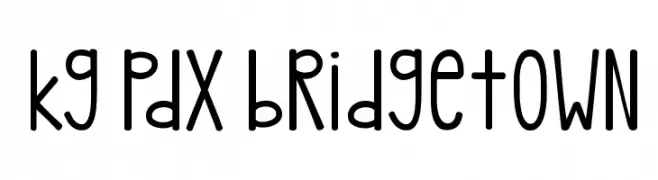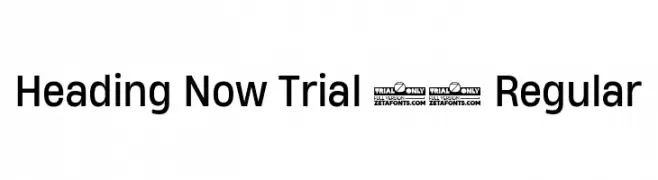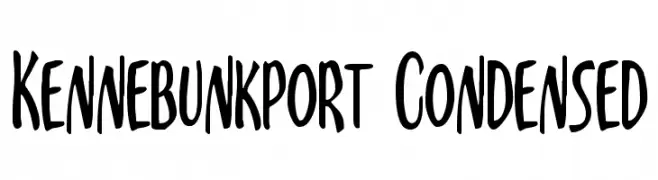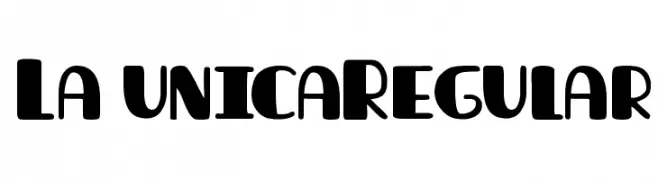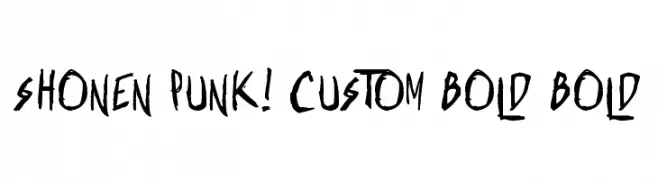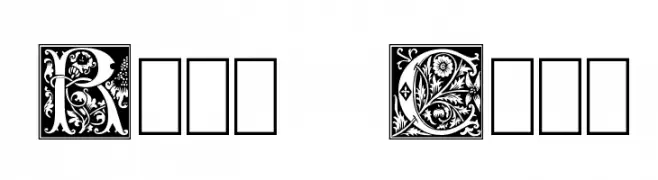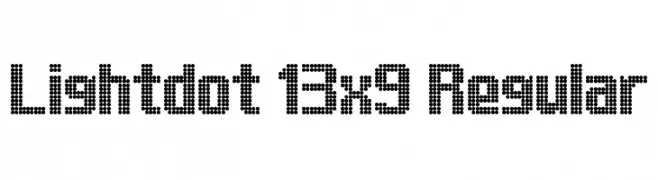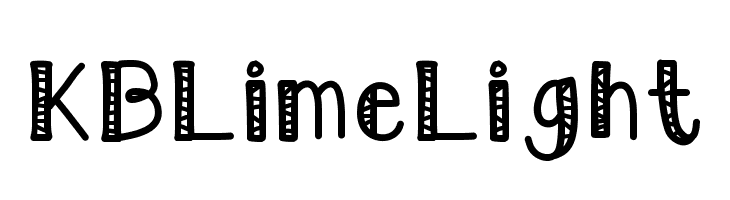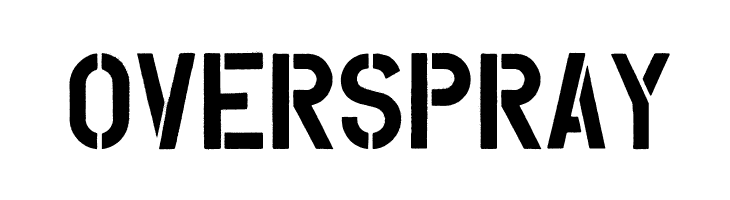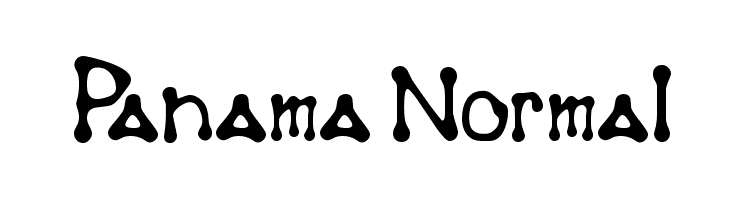
A playful, handwritten font with rounded edges and a friendly appearance.
A playful, handwritten font with an informal and organic style.
A modern, sans-serif font with a clean and geometric design.
Silhouette tree illustrations in place of standard characters.
A bold, condensed, hand-drawn font with a playful and energetic style.
A bold, playful font with rounded edges and a whimsical style.
A bold, hand-drawn font with a rebellious, punk-inspired aesthetic.
A dot matrix font with a modern, digital display style.
A bold, slanted font with a dynamic and modern style.